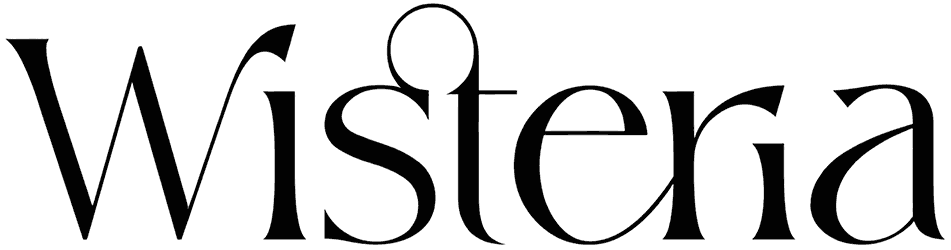
Wisteria Font
Wisteria adds a nostalgic yet timeless feel to any design project. Although this serif font is a thing of the past, it has a versatile style that can give your creative project a unique feel. That’s why this elegant font…
Wisteria adds a nostalgic yet timeless feel to any design project. Although this serif font is a thing of the past, it has a versatile style that can give your creative project a unique feel.
That’s why this elegant font still has a special place in RB’s growing library and is still a favorite of designers who are working on a poster or advertisement for authentic brands.